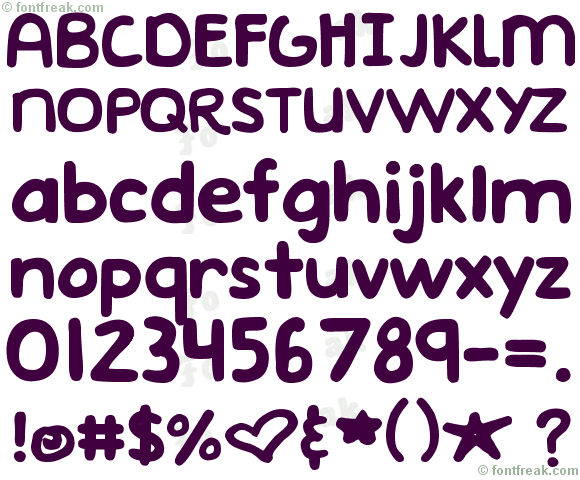
DJB EMPHATIC
About DJB EMPHATIC
DJB EMPHATIC, created by Darcy Baldwin, is a unique display font that captures attention with its playful and bold design. This font is characterized by its rounded, thick strokes that exude a sense of friendliness and approachability. The uneven baseline gives it a dynamic and informal feel, making it perfect for a variety of creative projects. The spacing between letters is generous, which enhances readability and adds to the overall charm of the typeface.
The DJB EMPHATIC font is well-suited for various use cases. It shines in contexts such as wedding invitations, where its whimsical style can set a joyful tone. Additionally, it works wonderfully for movie posters, allowing titles to pop and convey excitement. Restaurant menus can also benefit from this font, giving a modern yet inviting look that appeals to diners. For content creators, using DJB EMPHATIC in social media graphics can attract attention and engage audiences effectively. Small business owners can leverage this font in branding materials to convey a sense of warmth and personality.
Targeted at graphic designers, small business owners, and content creators, DJB EMPHATIC offers an accessible and visually appealing option for those looking to make a statement. Its freeware license allows users to incorporate this font into their projects without hesitation, making it a valuable addition to any designer’s toolkit.
What sets DJB EMPHATIC apart is its perfect blend of fun and functionality. This font provides the versatility needed for both playful and professional applications, making it a standout choice for anyone seeking to leave a memorable impression. For those interested in enhancing their designs, the DJB EMPHATIC font free download is readily available, inviting creativity and innovation.